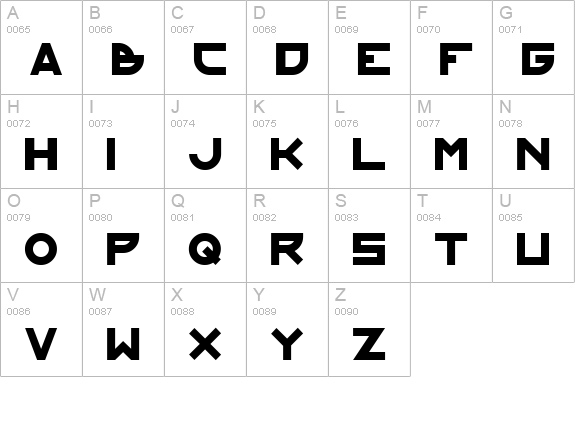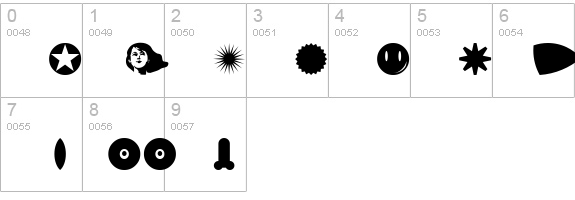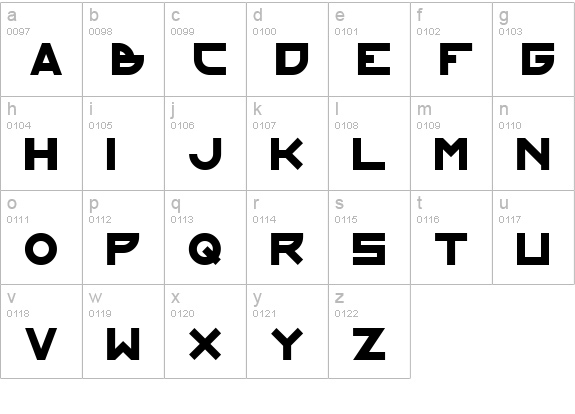
KraftUndStil Font Details
KraftUndStil font is a versatile and modern typeface that exudes elegance and sophistication. With its clean lines and stylish curves, this font is perfect for a wide range of design projects, from branding and advertising to packaging and editorial. The sleek and contemporary look of KraftUndStil font makes it a popular choice for designers looking to add a touch of class to their work. And the best part? KraftUndStil font is available for free download at FontsMarket.com! This means that you can easily access this stunning font and use it in your projects without any cost. Don't miss out on the opportunity to enhance your designs with the timeless beauty of KraftUndStil font. Download it now and let your creativity soar!